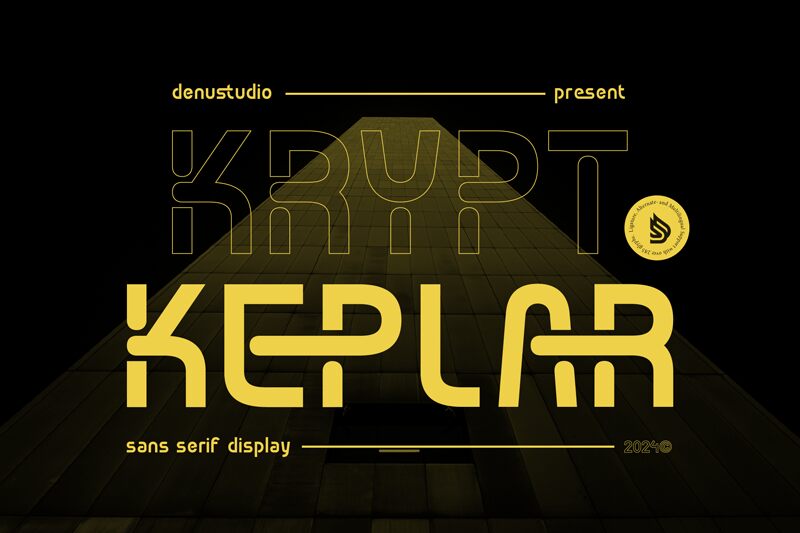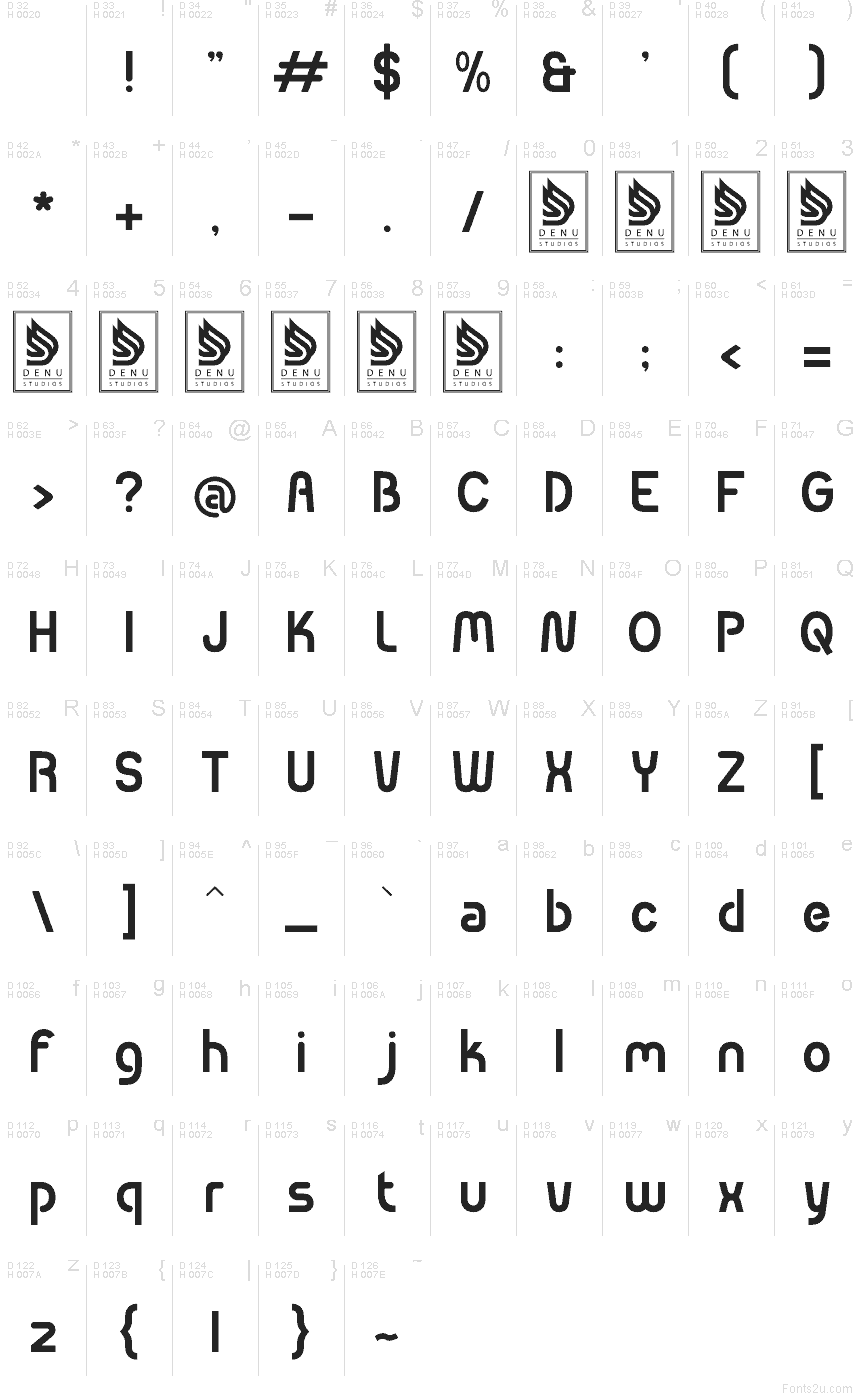
Krypt Keplar by Denustudios is a free techno display font with a compact sci-fi feel. The letters mix blunt verticals with soft, scooped curves, so the design feels both mechanical and oddly friendly, while shapes like the hooked y and rounded r keep the rhythm tight and unmistakably futuristic.
It suits game branding, music artwork, poster titles, app splash screens, and short packaging names where a free font with a tech slant can carry the whole mood. Use it for brief headlines, title cards, or logo experiments when you want clean geometric forms that still have a quirky, custom-cut pulse.